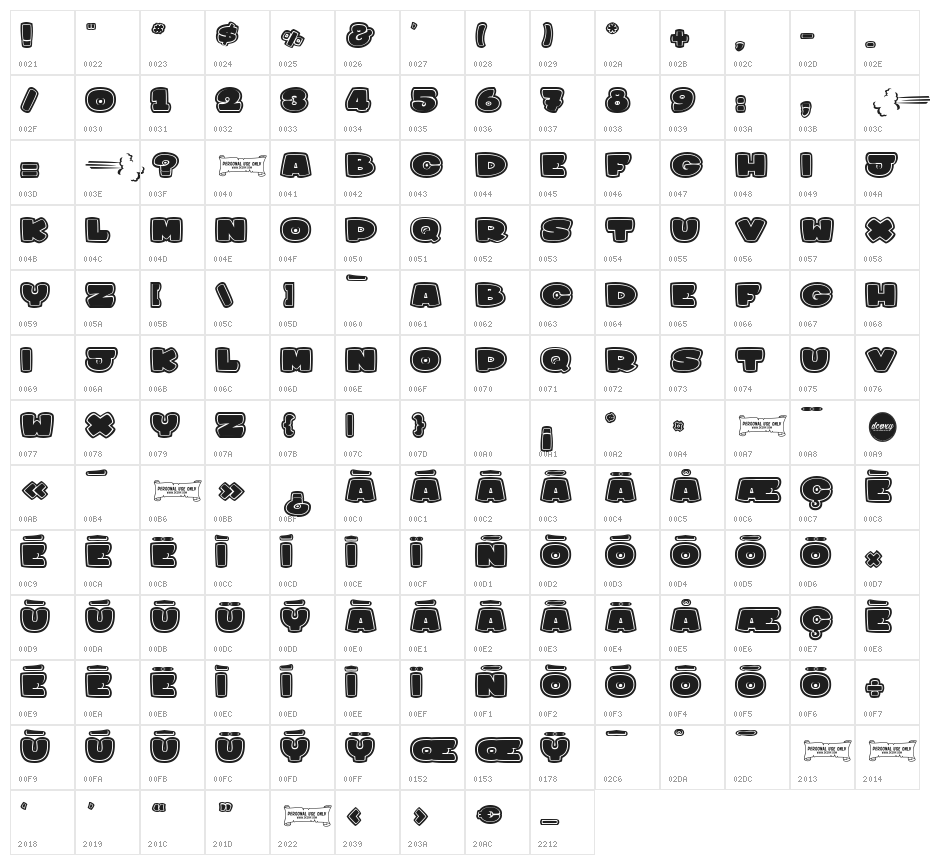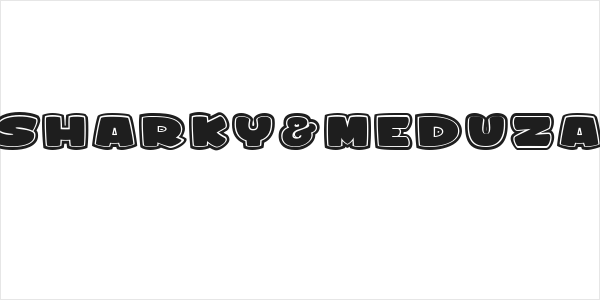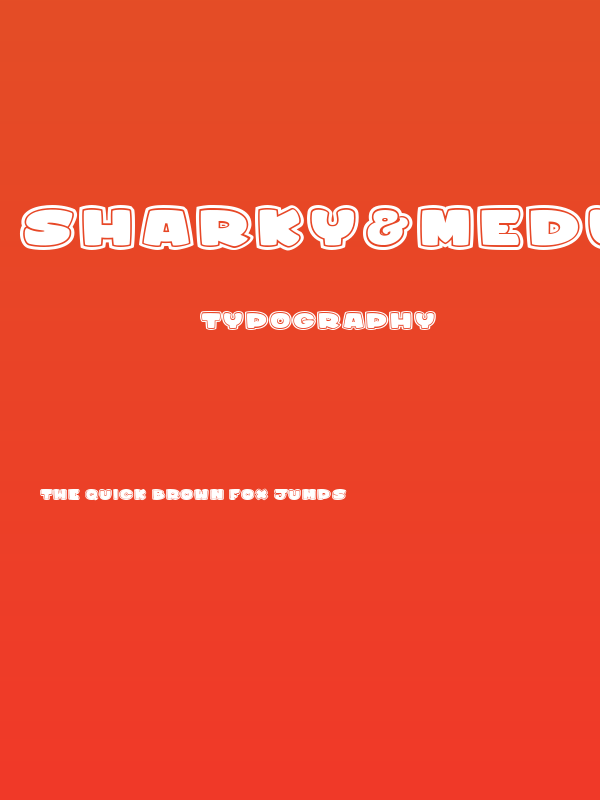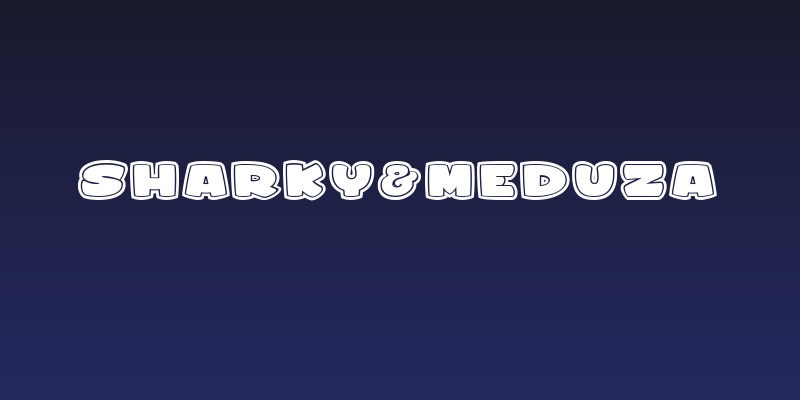
sharky&meduza Font
sharky&meduza Description
This font features a bold, playful style with thick, rounded edges and a strong outline that gives each character a three-dimensional effect. The letters are uniformly wide, creating a sense of balance and stability. The overall appearance is both fun and impactful, making it ideal for designs that require a bold statement. The numbers and special characters maintain the same playful and robust style, ensuring consistency across all text elements. The font's unique design is perfect for capturing attention and conveying a sense of creativity and energy.
| Overall Style | Playful, Fun, Bold |
| Proposed Projects | Ideal for children's books, playful branding, posters, and event invitations. |